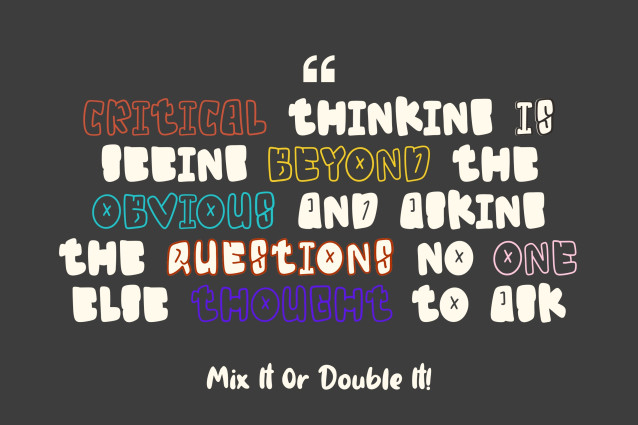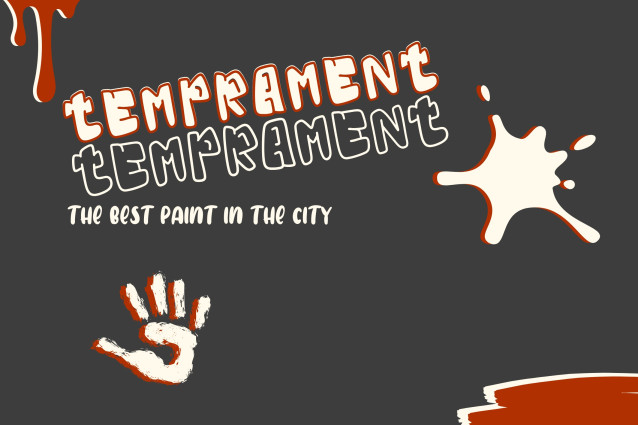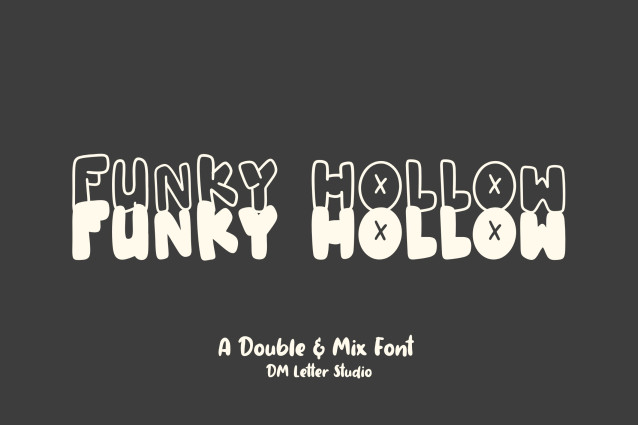
Funky Hollow Font is a quirky and eye-catching display font that combines double-line outlines with playful mix-and-match styling. Its bold and groovy look makes it perfect for retro-inspired designs, streetwear branding, posters, and creative packaging. Whether you use it as a solid headline or layer the mixed style for vibrant effects, Funky Hollow brings funky personality and visual energy to your projects.